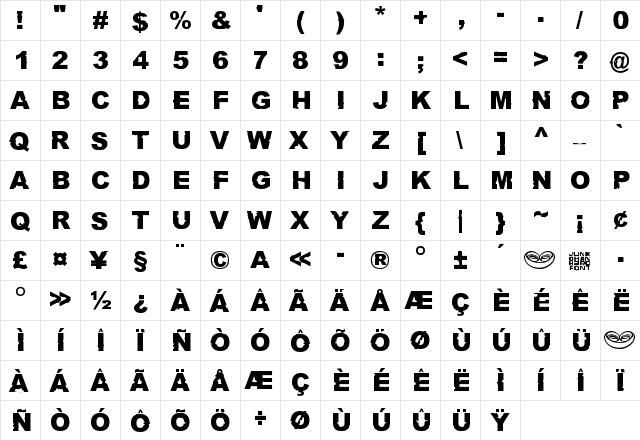
Rust never sleeps Regular
| Designer | junkohanhero |
Design Context for Rust never sleeps Typeface
Rust never sleeps is a composed and adaptable typeface that performs quietly and consistently across a wide range of design contexts.